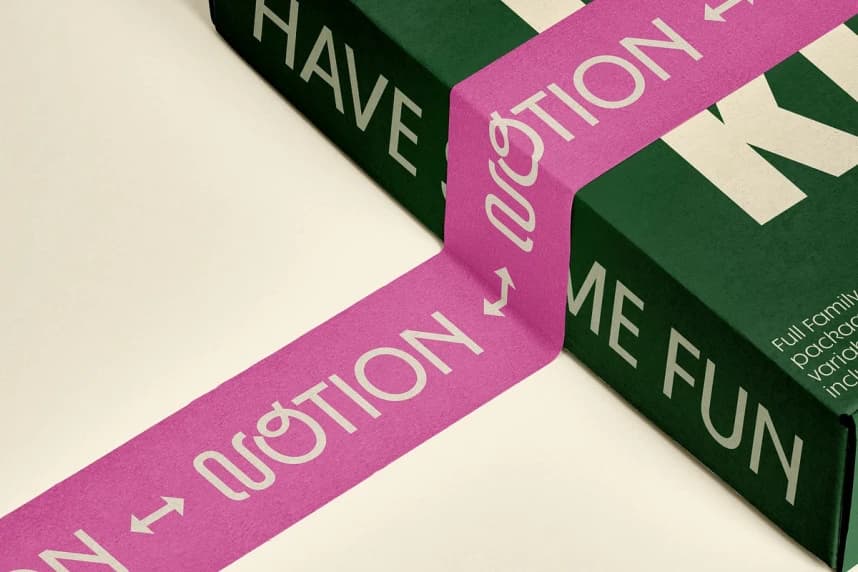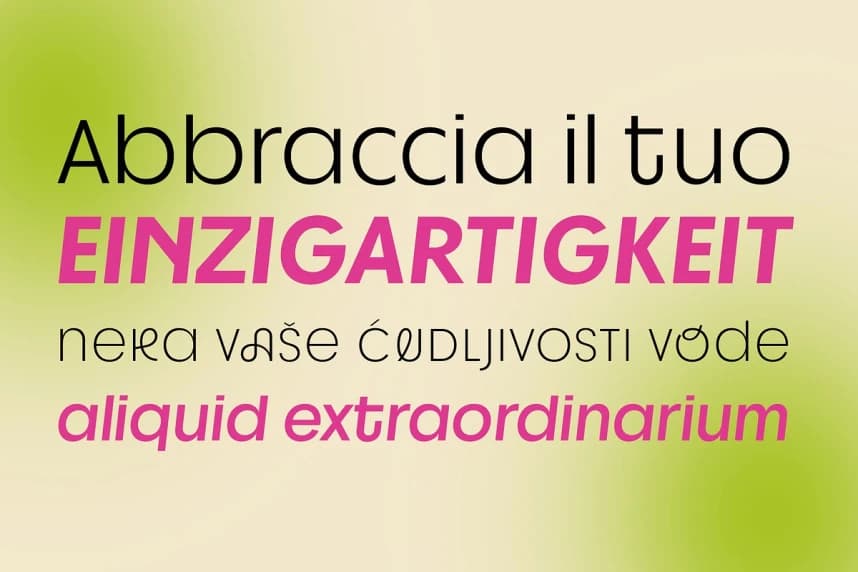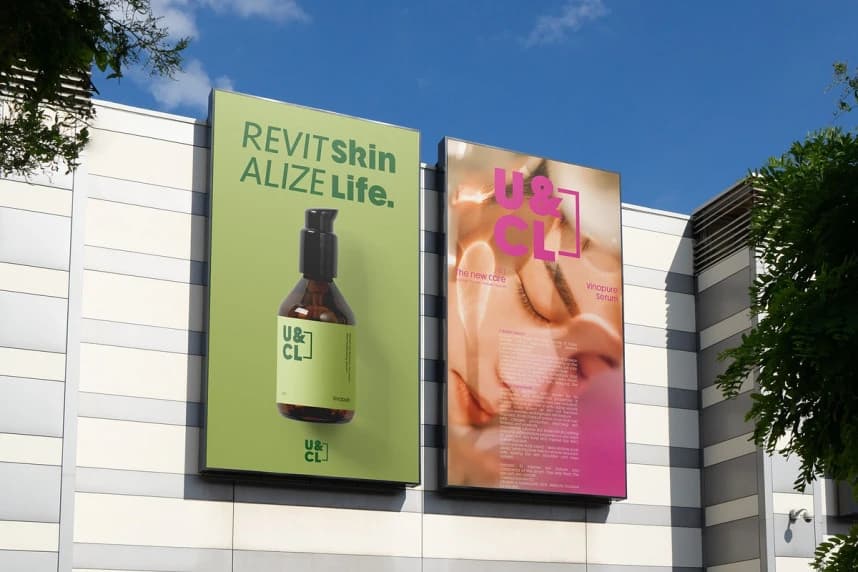
JHC Notion Font
JHC Notion Font is a modern geometric sans-serif font that strikes a perfect balance between precision and personality. With its clean, sharp lines and minimalist structure, it exudes contemporary, making it versatile for a wide range of projects.